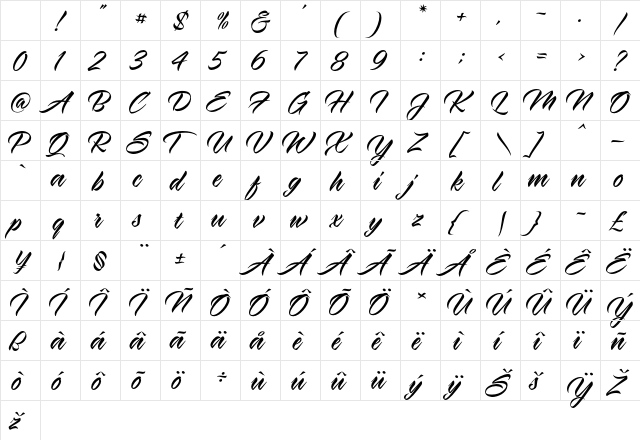
Virmana Script flows with the natural rhythm of handwritten lettering, making it ideal for designs that call for warmth and personal expression.
Font Pairing: Combine Virmana Script with a simple geometric sans for maximum contrast - the tension between flowing curves and clean structure is a classic typographic pairing.
Pro Tip: Use Virmana Script for short runs of text - names, titles, or taglines. Extended body copy in script faces tires the eye quickly.